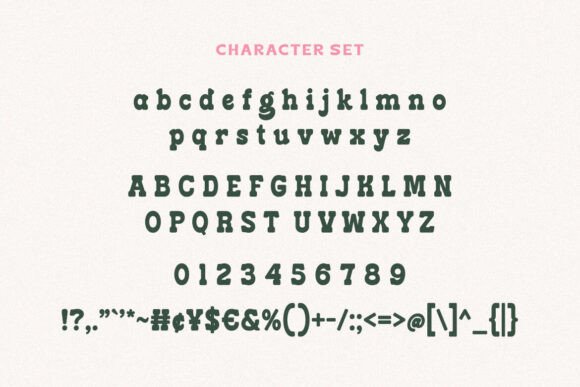
Holiday Mango Font
Holiday Mango is a unique retro slab font style. This font has alternative characters in it, such as letters with tails or swashes that you can adjust to your style and creativity.
Very suitable for logotype, Stickers, Packaging design, Cricut Project, headlines, brand identity, t-shirt or apparel industry, posters, magazines, books, YouTube, Instagram, websites, Canva, Corjl or any of your creative design projects. Use this Holiday Mango font to add that special modern retro touch to any design idea you can think of!